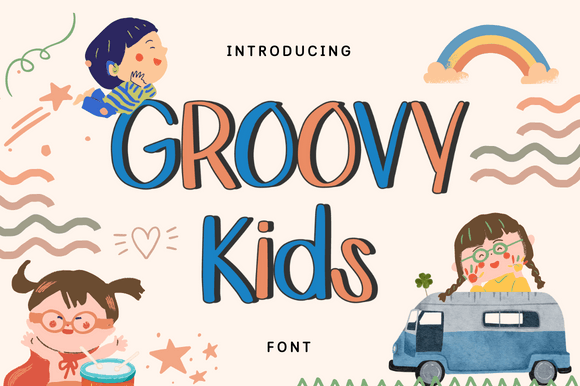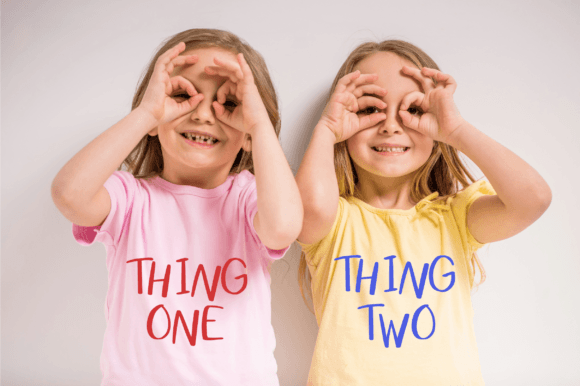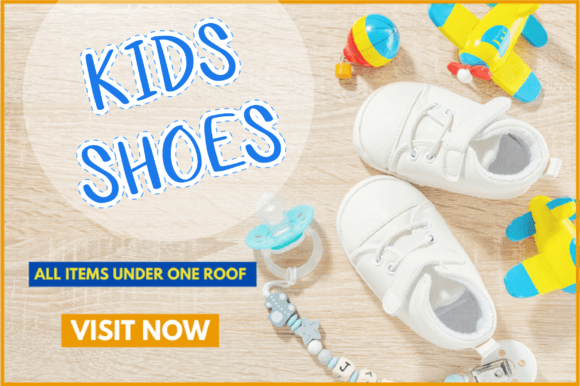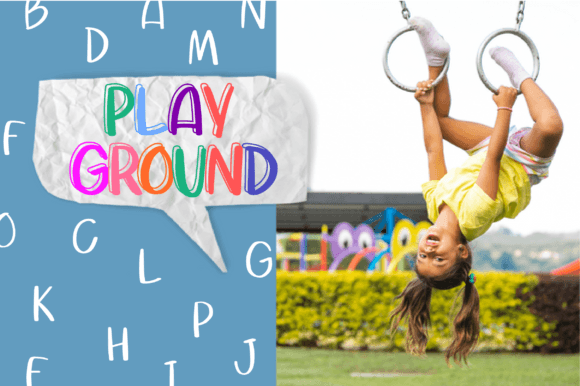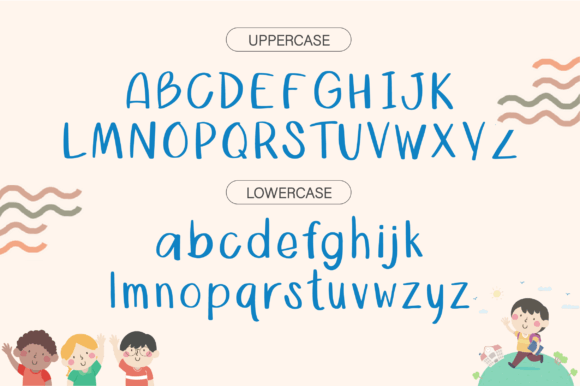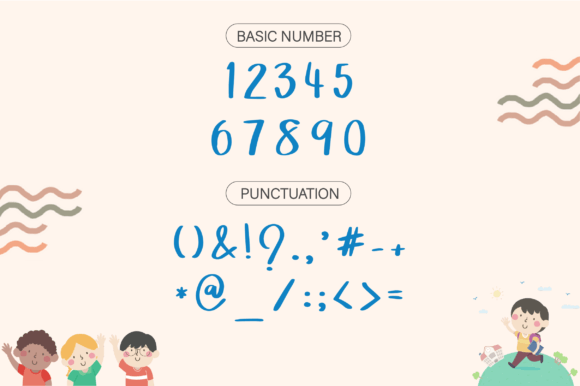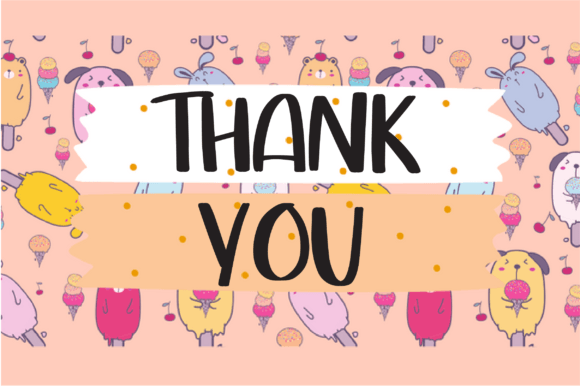
Groovy Kids Font
About Groovy Kids Font
Introducing Groovy Kids, a cute and playful handwritten font crafted to bring a cheerful and vibrant vibe to your designs, especially those centered around children’s themes. With its whimsical style, Groovy Kids is the perfect choice for projects that call for a fun and lighthearted touch, and it pairs exceptionally well with bright colors.
The playful nature of Groovy Kids makes it an excellent fit for a variety of children’s themed designs. Its handwritten charm adds a personal and friendly feel, creating a welcoming atmosphere for young audiences.
Imagine Groovy Kids adorning birthday invitations, where its cute and playful script sets the tone for a joyous celebration. Picture it on children’s educational materials, making learning fun and engaging with its vibrant and friendly style. Envision it becoming the go-to font for playful logos, websites, or any design that aims to capture the attention and imagination of young minds.
Groovy Kids is more than just a font; it’s a creative asset that brings a sense of playfulness to your projects. Its versatility and cheerful design make it a delightful choice for a range of applications.